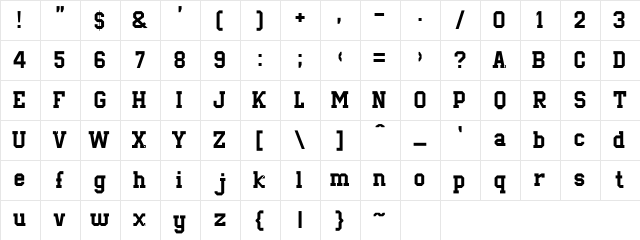
MStar2 Regular Free Font
MStar2 Regular
Design Context for MStar2
MStar2 is a composed and adaptable typeface that performs quietly and consistently across a wide range of design contexts.